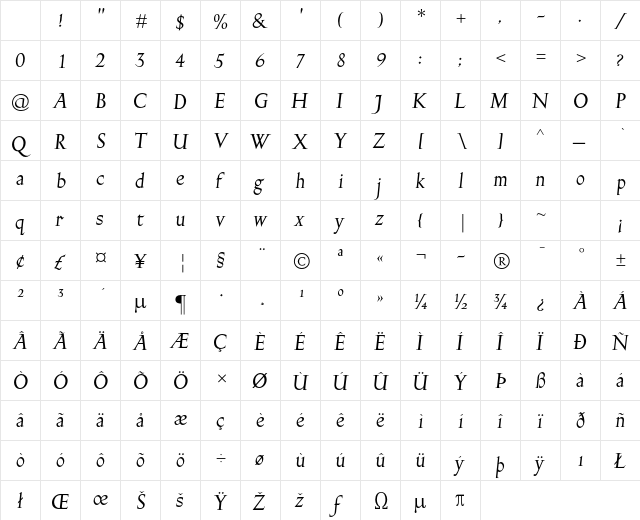
Gill Facia MT Std Italic
Design Context for Gill Facia MT Std
Gill Facia MT Std is a composed and adaptable typeface that performs quietly and consistently across a wide range of design contexts. The slanted form adds forward momentum and visual energy.
Pro Tip: Use Gill Facia MT Std for emphasis, pull quotes, and subheadings where its slanted energy can add rhythm to the layout.